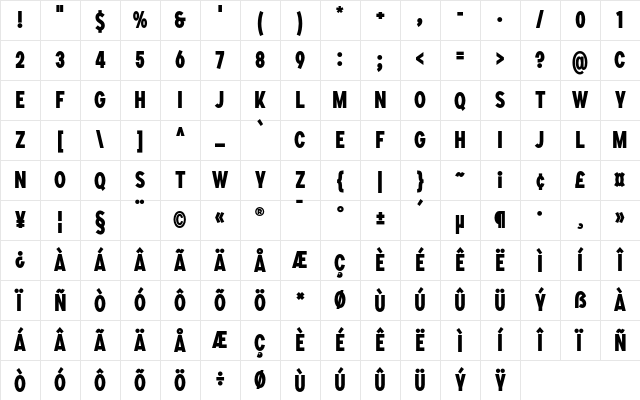
Complete SONGER Condensed ExtraBold glyph index. Displaying only characters natively supported by SONGER Condensed ExtraBold font.
SONGER Condensed is a composed and adaptable typeface that performs quietly and consistently across a wide range of design contexts. Its bold stroke weight gives it real presence on the page. Its narrow stance lets it pack a punch even in space-constrained designs.